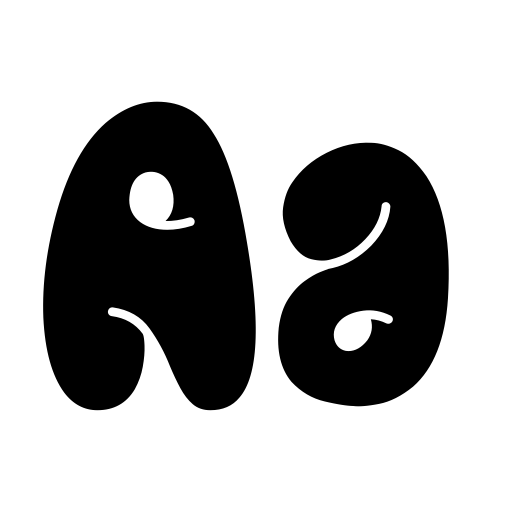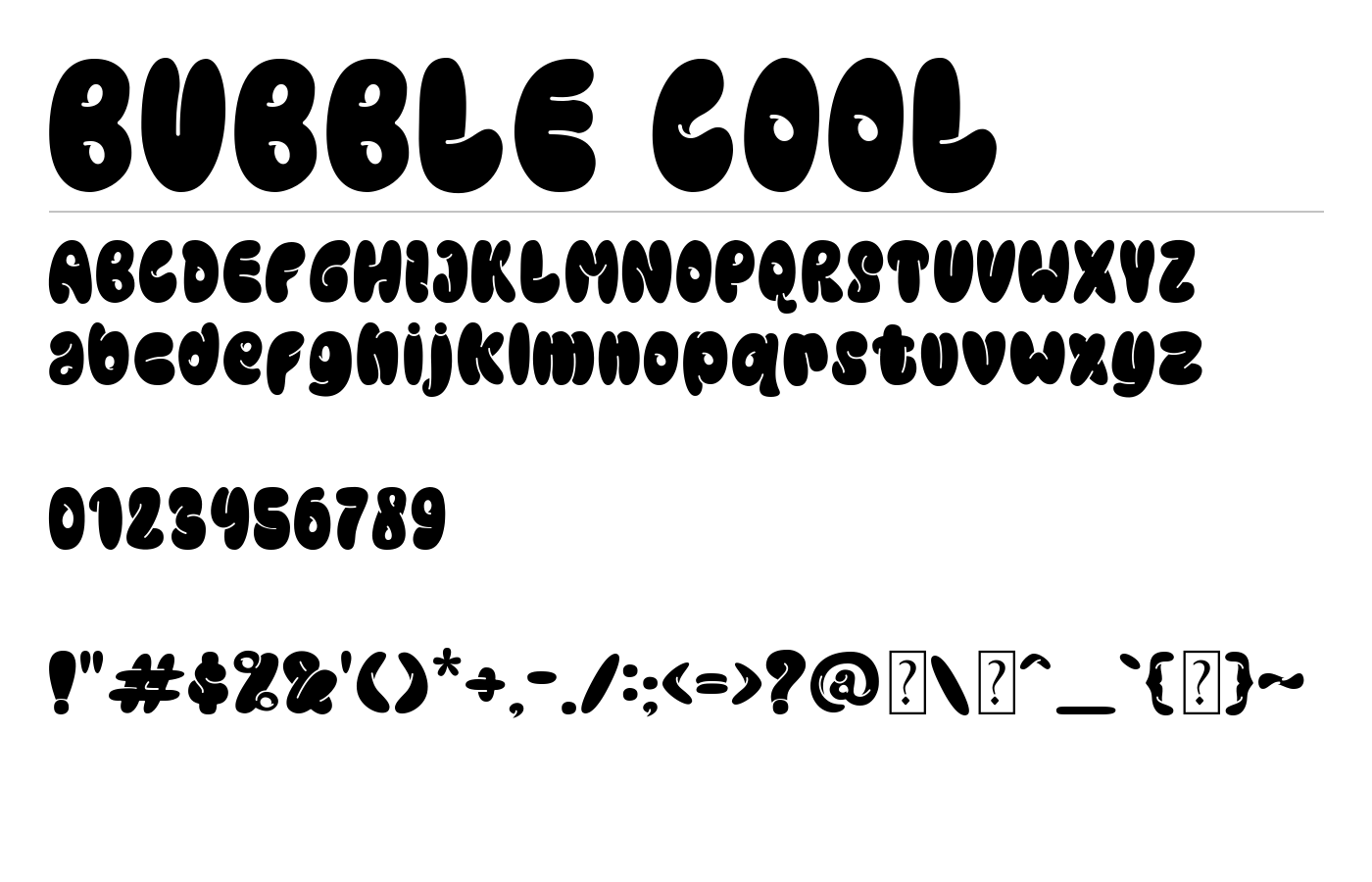
Bubble Cool is a playful and bold sans serif font with rounded, bubbly letterforms that give it a fun and approachable personality. Its thick, soft shapes and balanced spacing make it perfect for informal designs, kid-friendly branding, or any project that wants to convey cheerfulness and creativity. This font works best in eye-catching headlines, logos, and packaging where a lively and unique style is desired.
BUBBLE COOL Font
About BUBBLE COOL Font